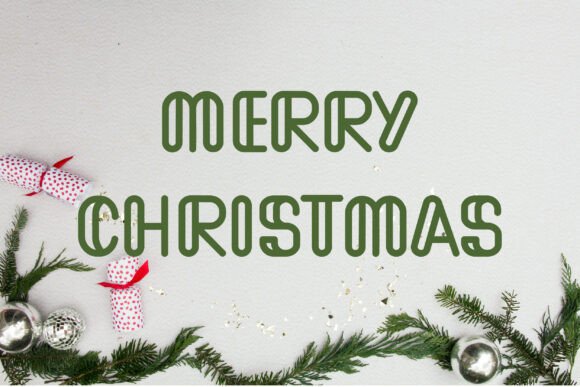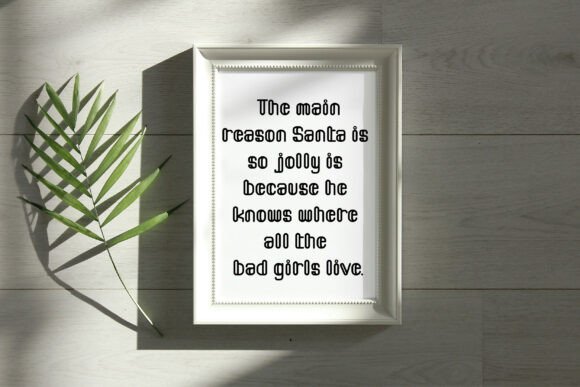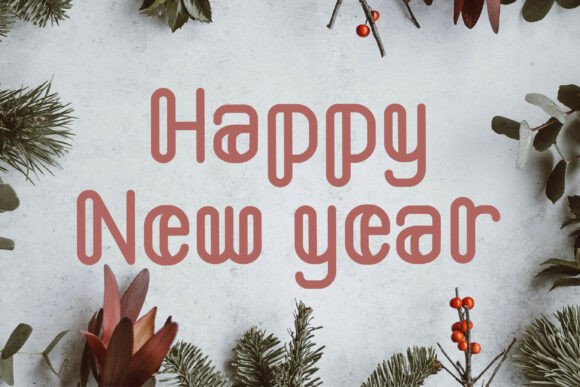
Introduction to Ho Ho Holly Jolly Font
Brighten your festive projects with Ho Ho Holly Jolly, an irresistibly cute and whimsical Christmas display font.
This typeface stands out with its unique, rounded, tubular structure, featuring rounded terminals and distinct, bubble-like openings within characters, giving it a playful, bouncy, and almost inflated appearance The bold, friendly weight ensures it jumps off the page, perfectly capturing the lighthearted spirit of the holiday season.